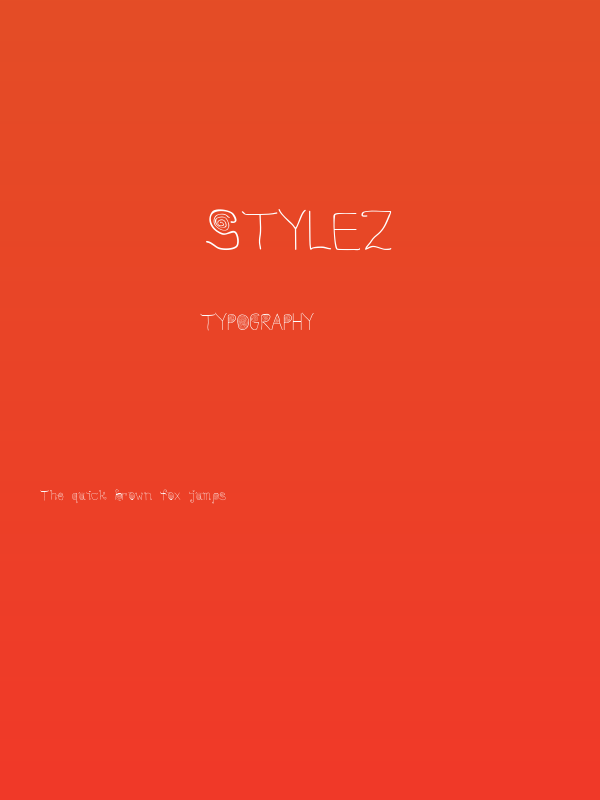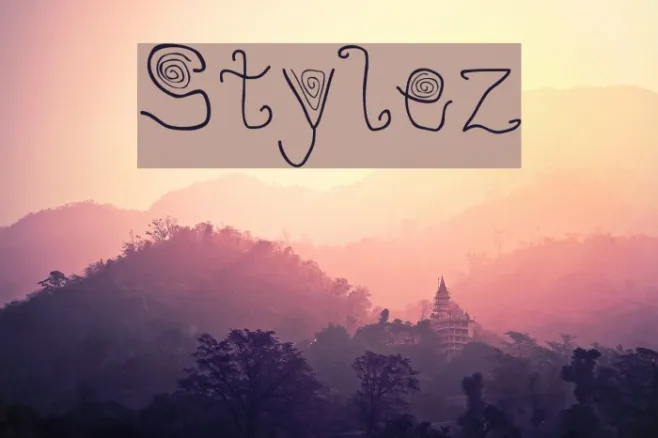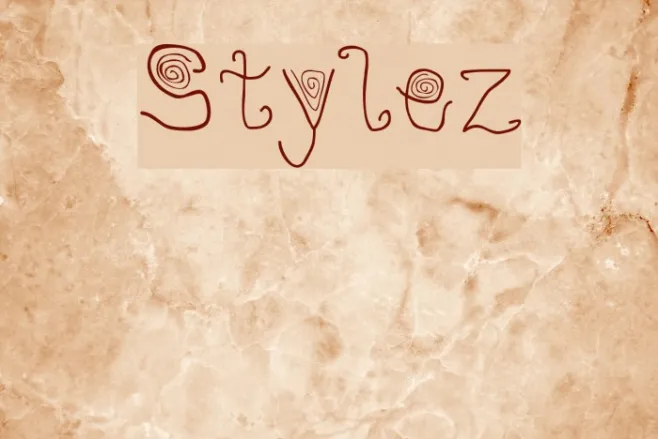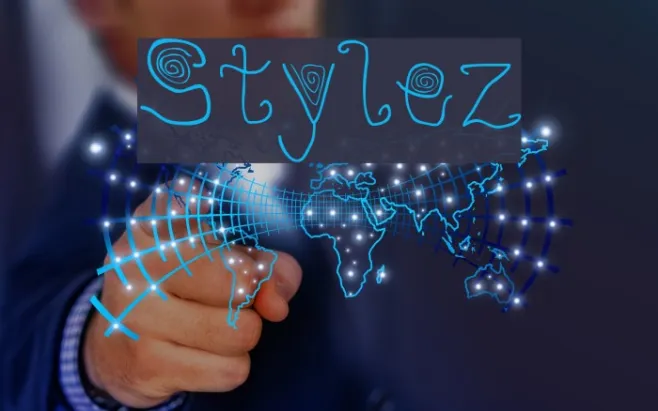
Stylez Font
Stylez Description
This font features a whimsical and playful design, characterized by its spiral and looped elements within each letter. The strokes are thin and consistent, giving it a light and airy feel. The uppercase and lowercase letters maintain a quirky, hand-drawn aesthetic, with unique embellishments that make each character stand out. Numbers and special characters follow the same playful style, ensuring a cohesive look across all text. This font's distinctiveness makes it ideal for creative projects where a fun and informal tone is desired.
| Overall Style | Playful, Artistic |
| Proposed Projects | Ideal for children's books, playful branding, creative posters, and artistic invitations. |